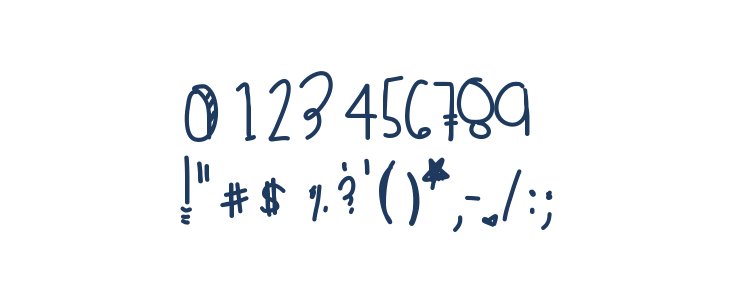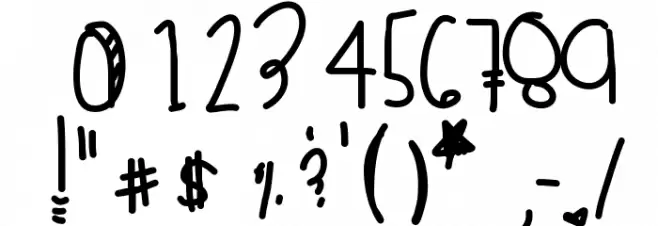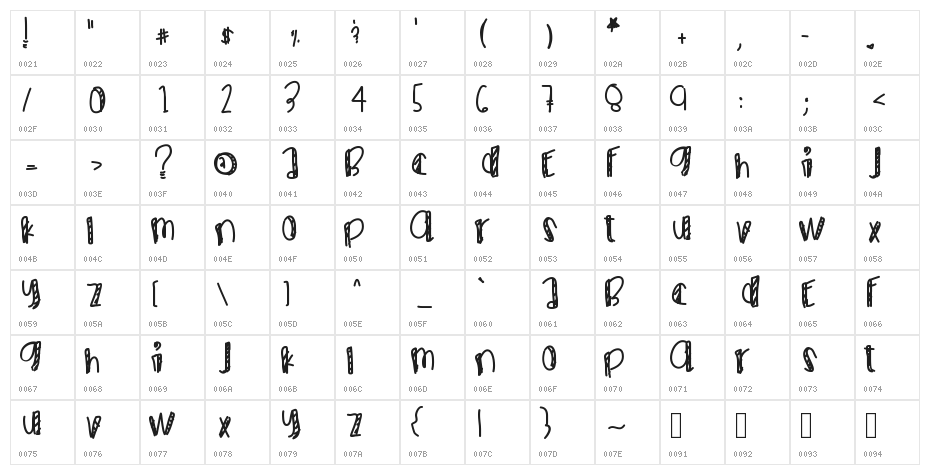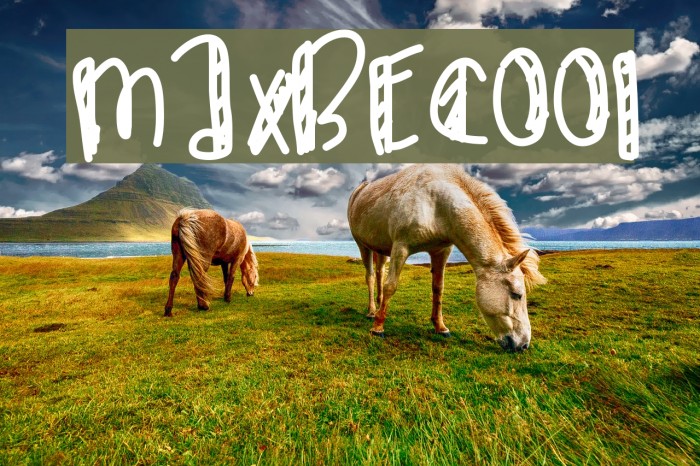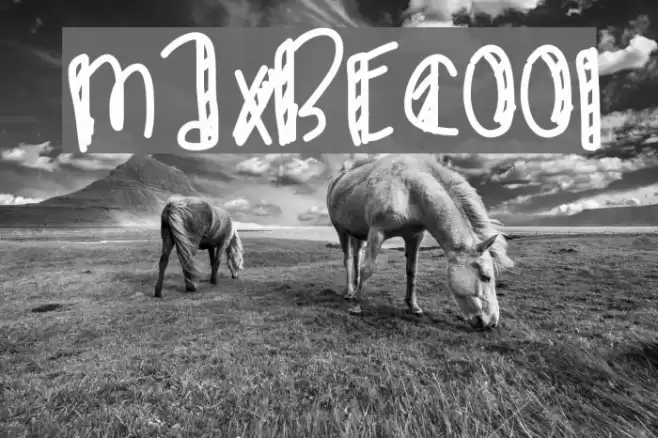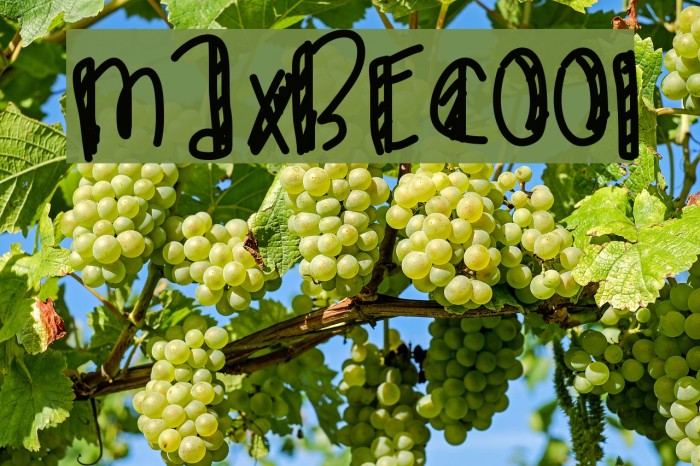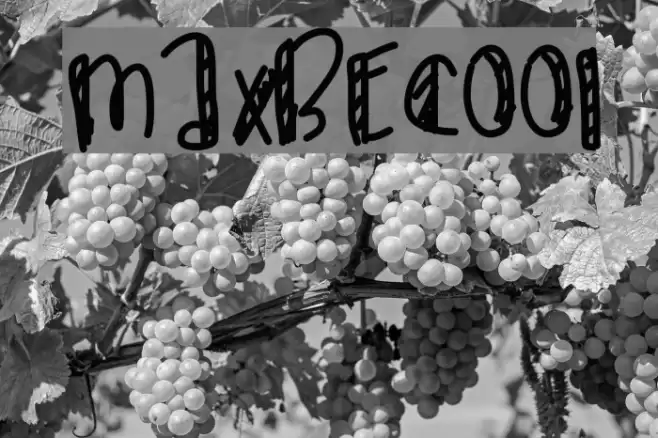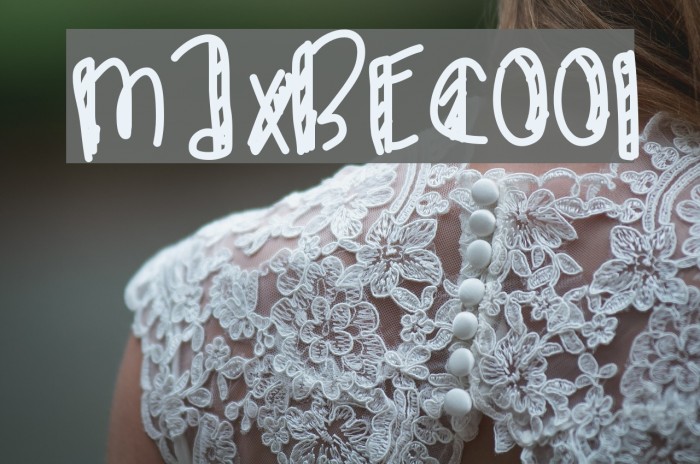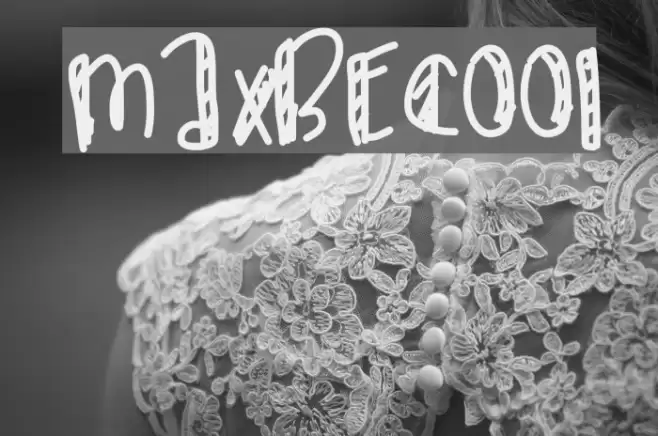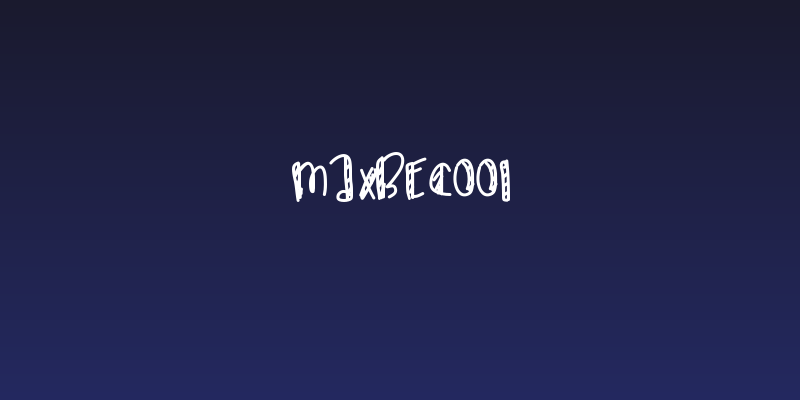
MaxBeCool Font
MaxBeCool Description
This font exhibits a playful and informal handwritten style, characterized by its bold and quirky letterforms. Each character is uniquely crafted with a sense of spontaneity, featuring irregular strokes and a slightly uneven baseline that adds to its charm. The uppercase and lowercase letters maintain a consistent style, with rounded edges and a sense of movement. The numerals and special characters follow the same whimsical design, making the font suitable for creative and casual applications. Its distinct personality makes it stand out, perfect for projects that require a touch of fun and individuality.
| Proposed Projects | Ideal for greeting cards, children's books, playful branding, and social media graphics. |